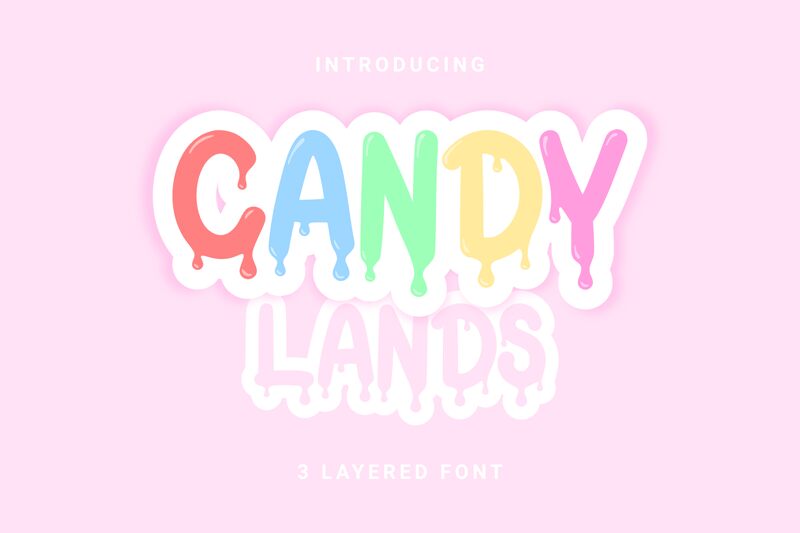
Candylands font by Makashi is a free Halloween display font that turns headlines into glossy, drippy treats. Each letter oozes like melted candy or friendly slime-rounded, bouncy, and a little mischievous-so you get spooky without the gore. The bold weight and chunky rhythm hold up at large sizes, delivering big impact on dark or neon backgrounds.
This free font shines on trick-or-treat posters, haunted house flyers, party invites, storefront windows, stickers, and YouTube thumbnails. Using Candylands, you’ll get instant seasonal mood with readable shapes that stack well and track tight. Pair it with a simple geometric sans for body copy, and let the gooey caps do the heavy lifting in your titles.